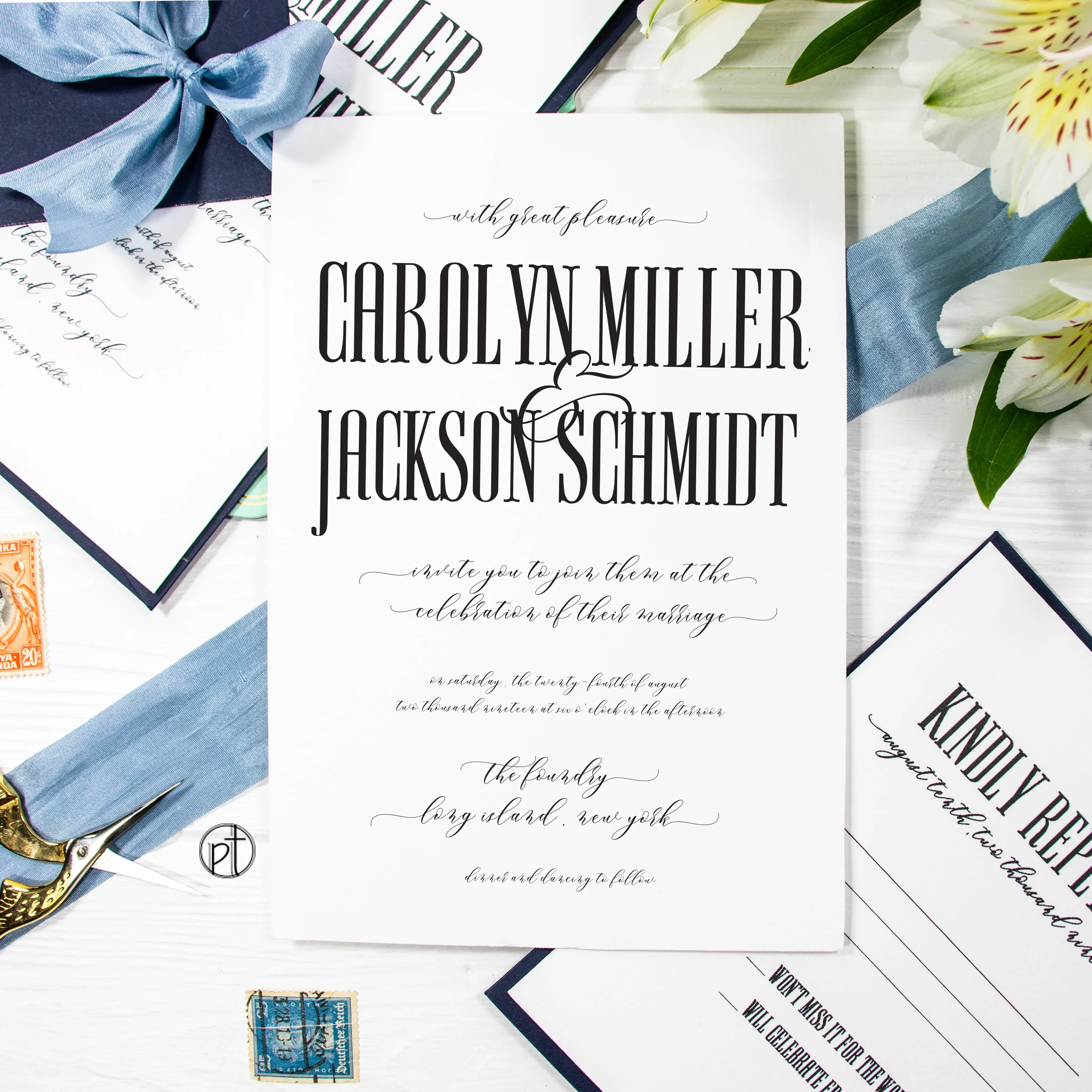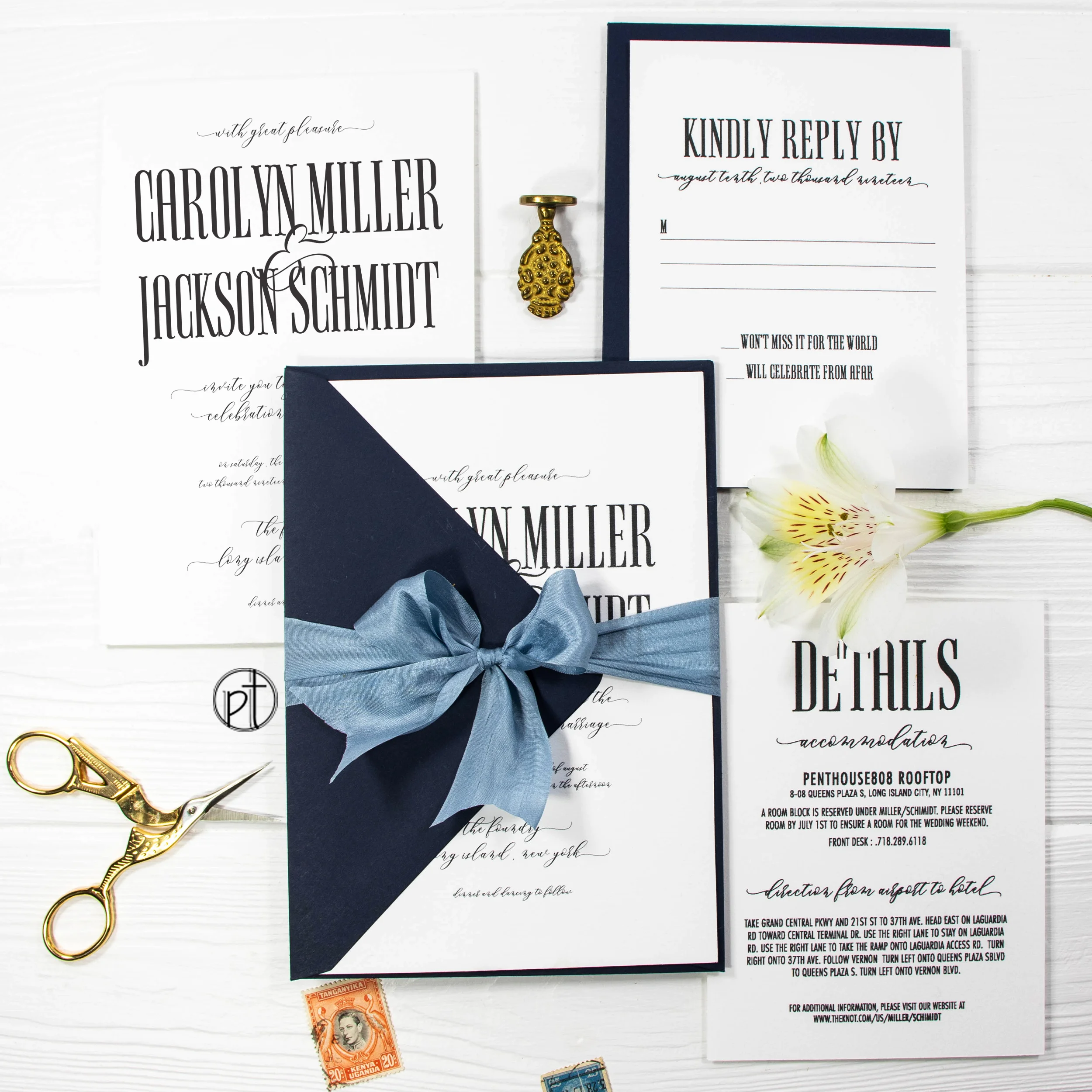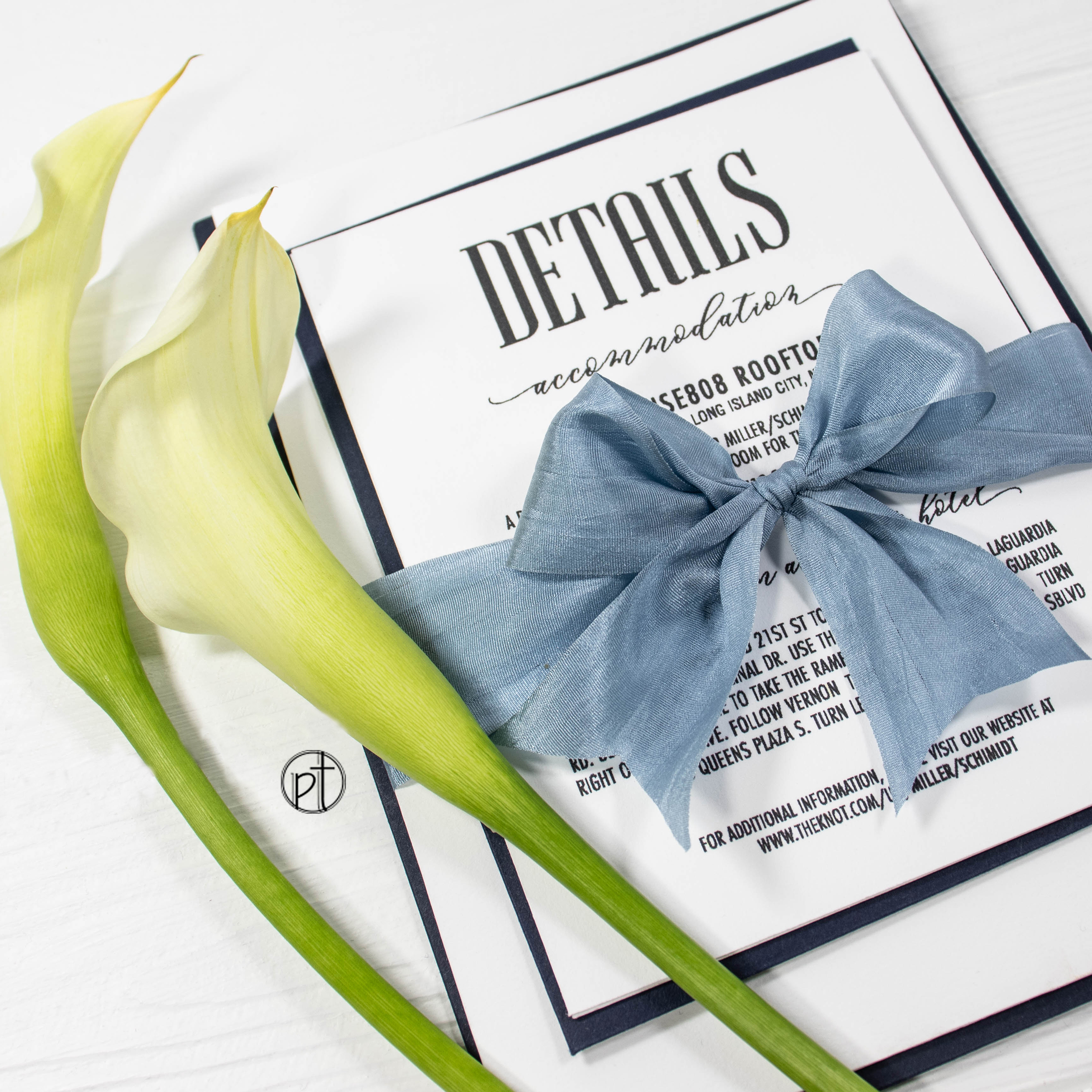
Tall & Afar
Tall and afar is another new segment for the “Just Type” challenge. This time I am celebrating my love for tall, thin, unique, minimalist and condensed serif font. In this wedding invitation suite, it is a perfect combination of simplistic, linear, modern, vintage design. To read more about the artist process of this stationery suite, please visit my blog called, Daily Personal Types